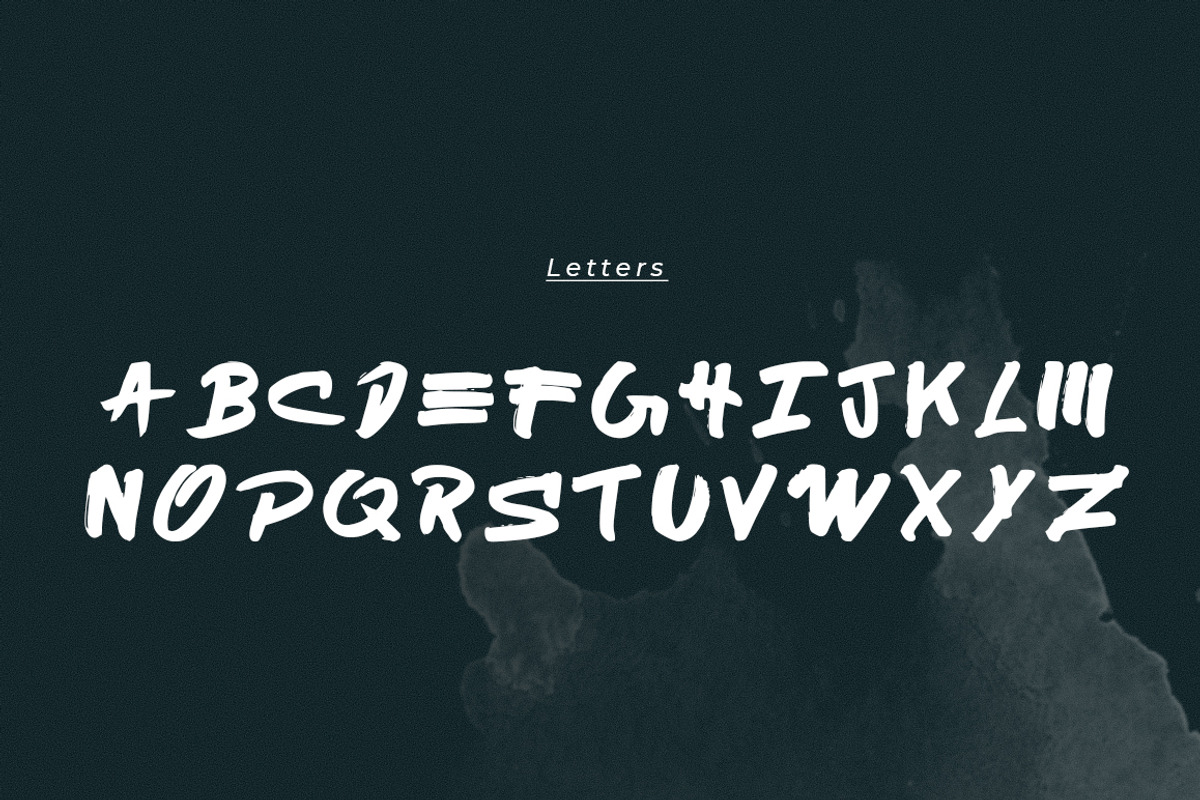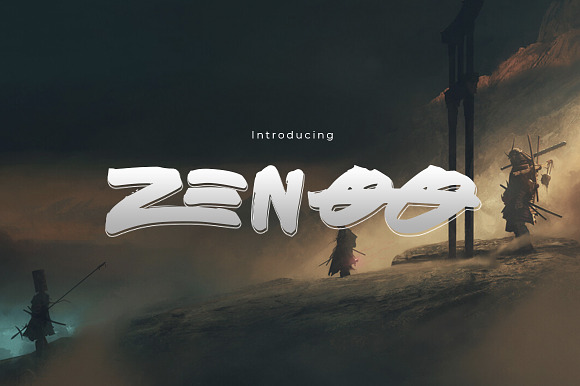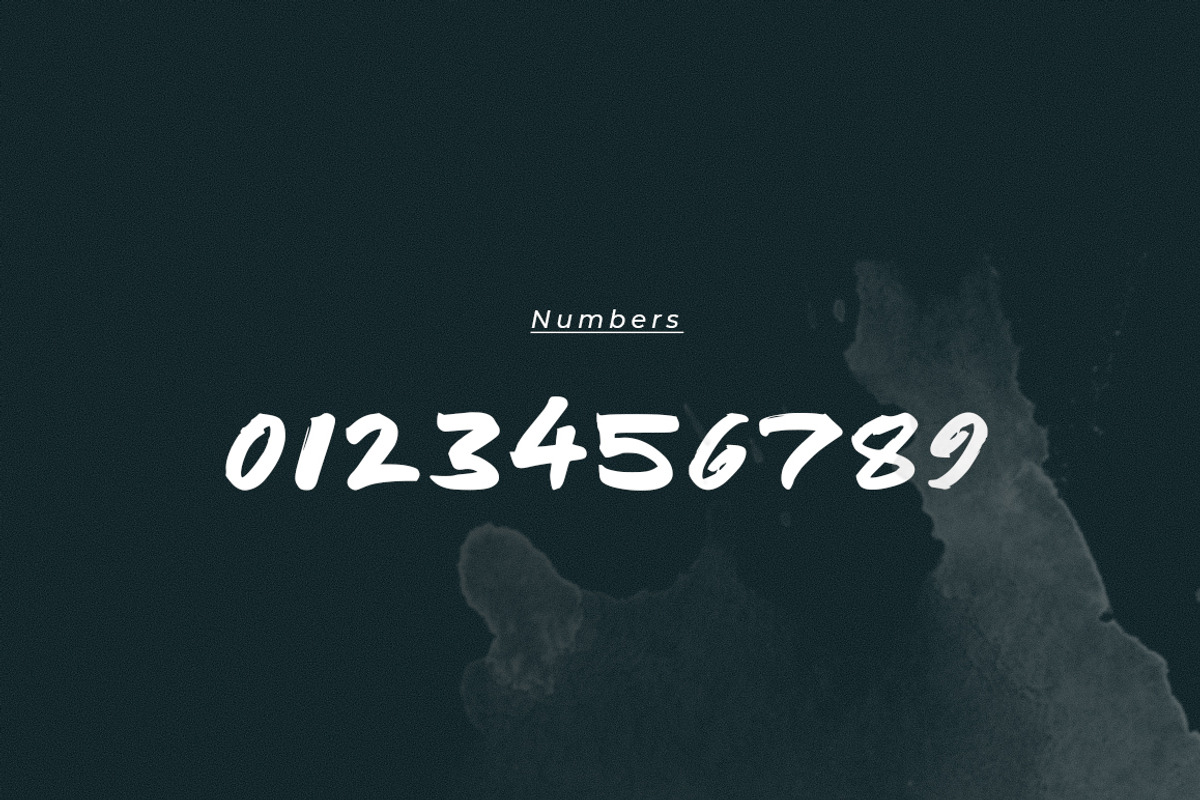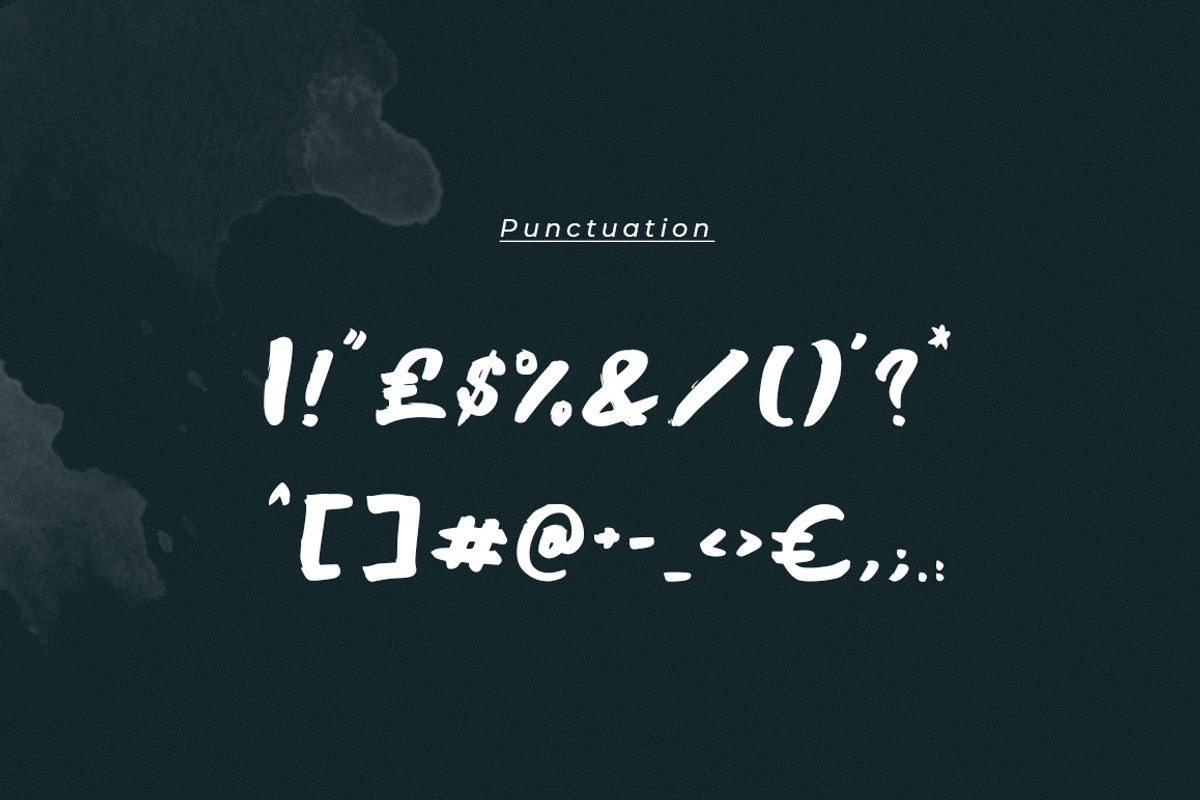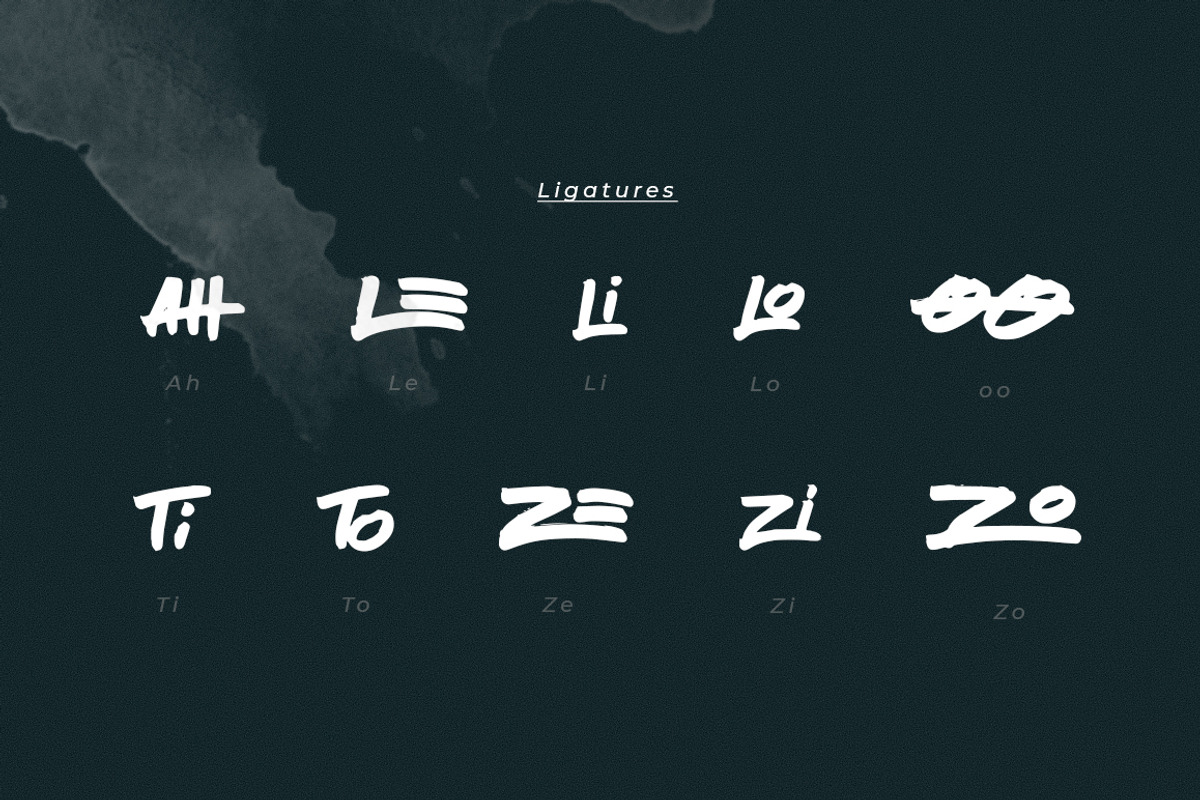
Zenoo | Brush Font
Zenoo, my first attempt to a brush font.
zenoo regular with ligatures
Zenoo | Brush Font by ATT fits naturally into Branding, posters, packaging, typography.